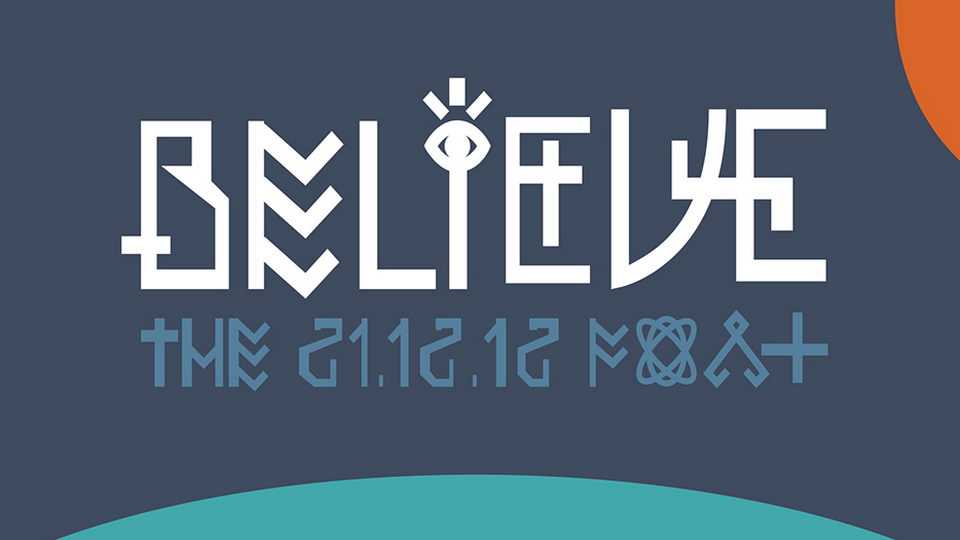
Download Believe font, a unique display typeface featuring a little type reflection about human beliefs, symbolism and the place of unknown things in our societies.
Designer: Konrad Bednarski